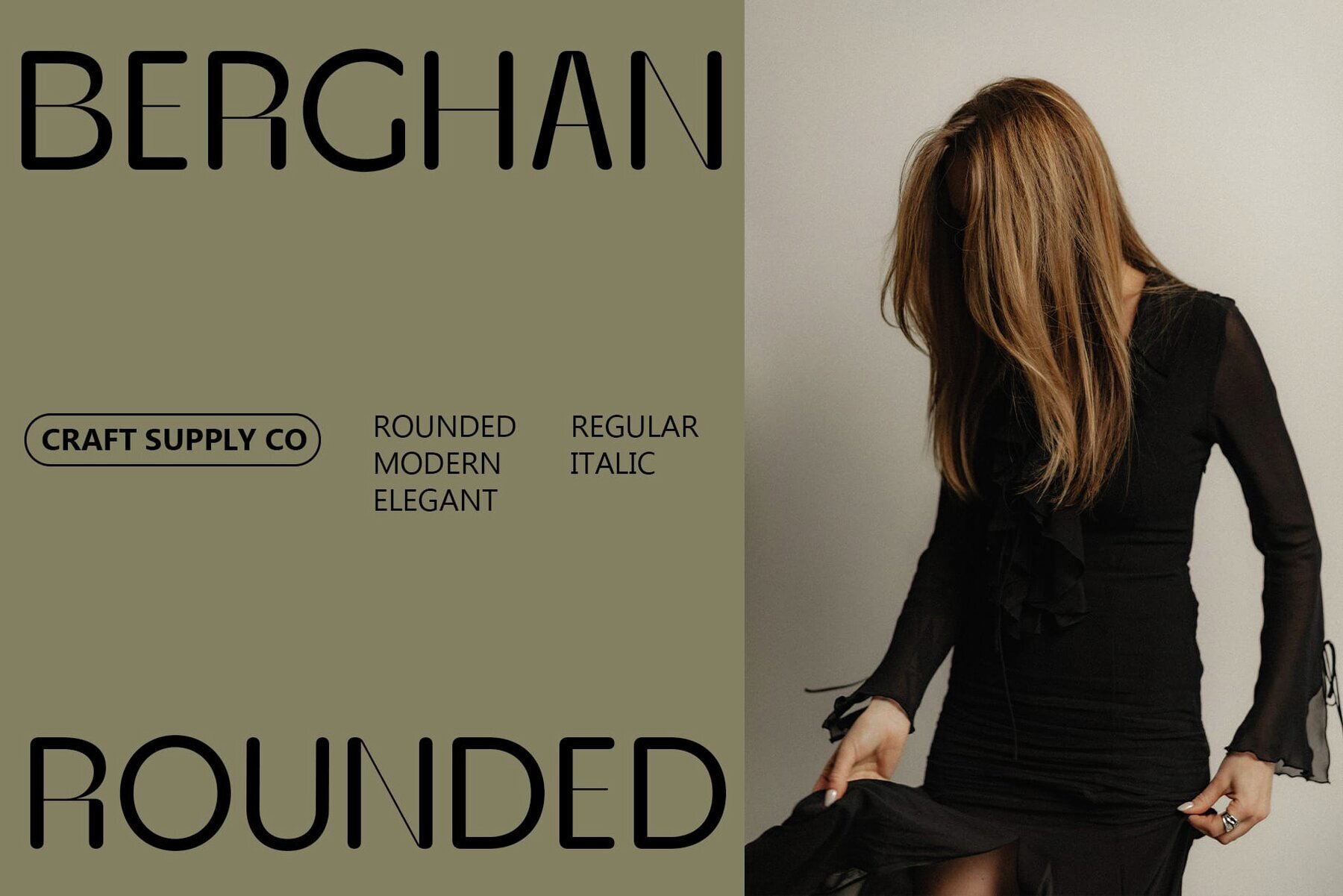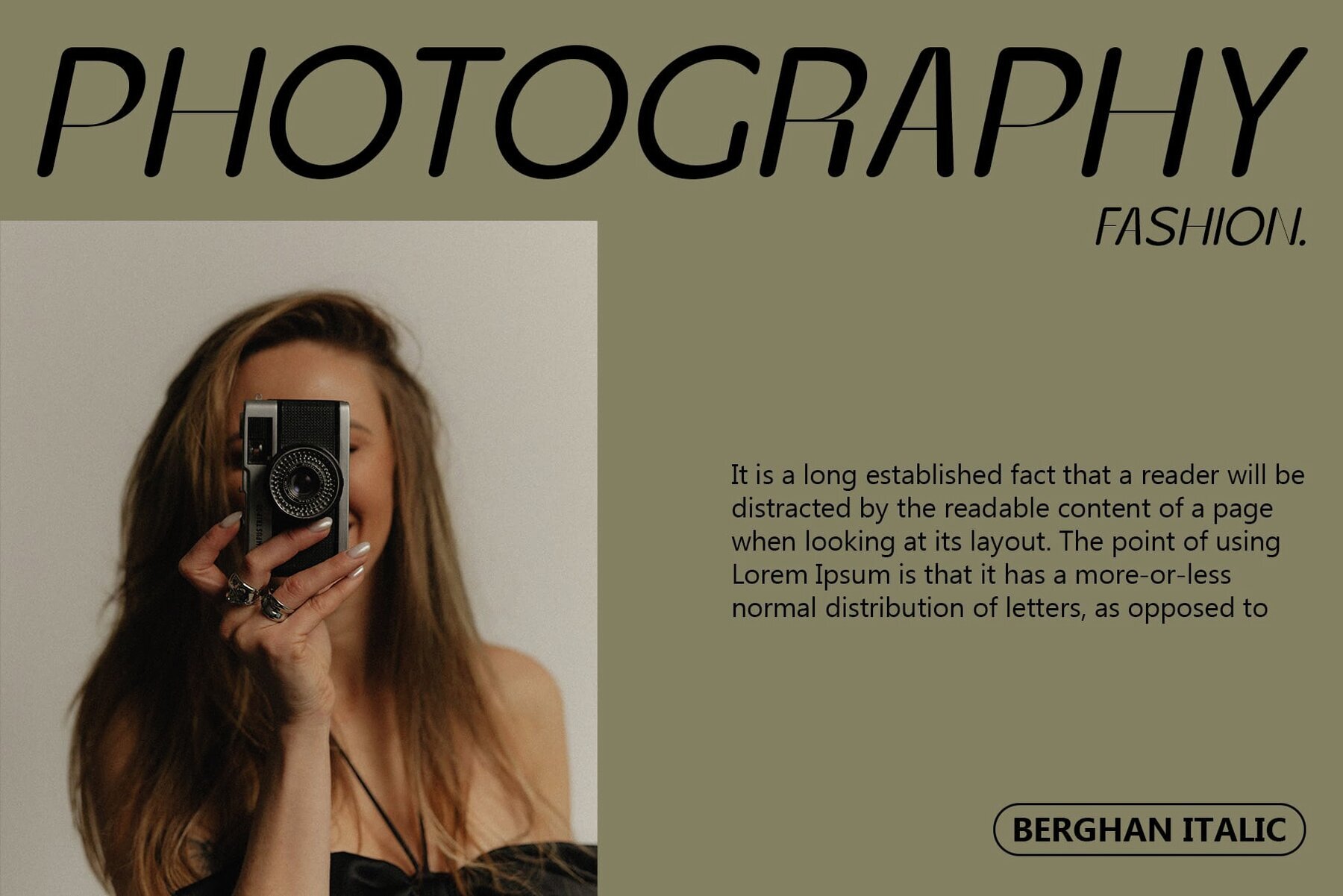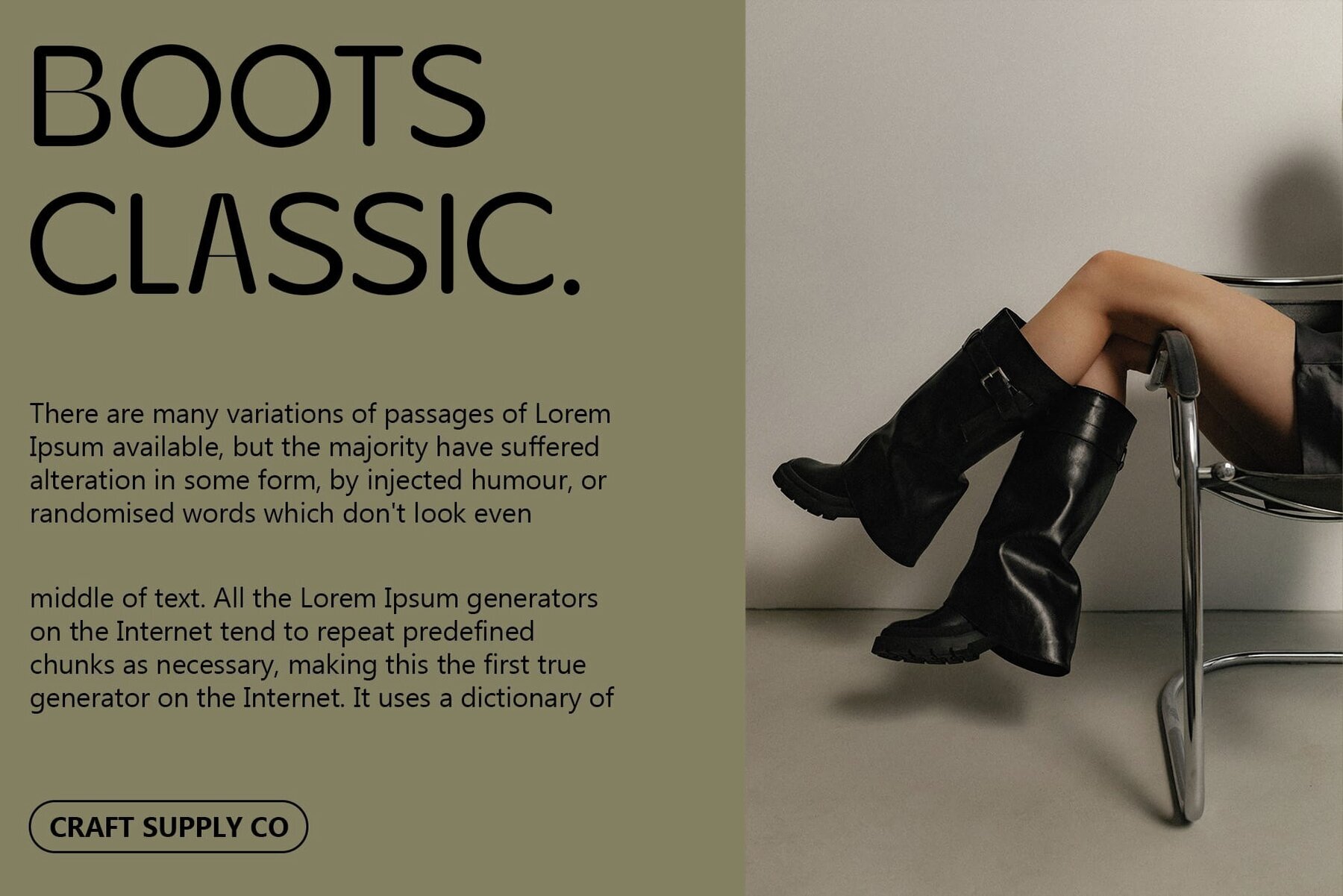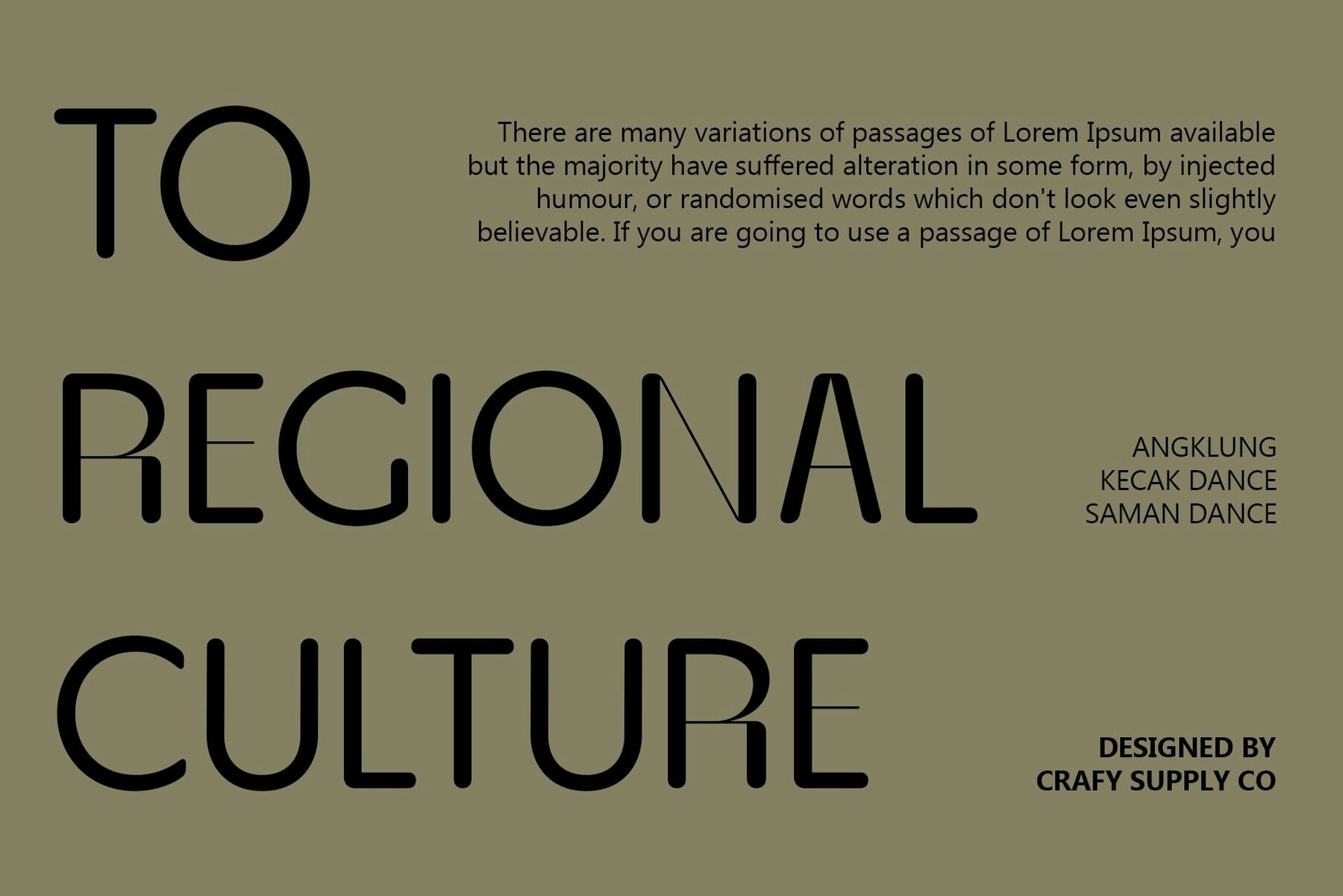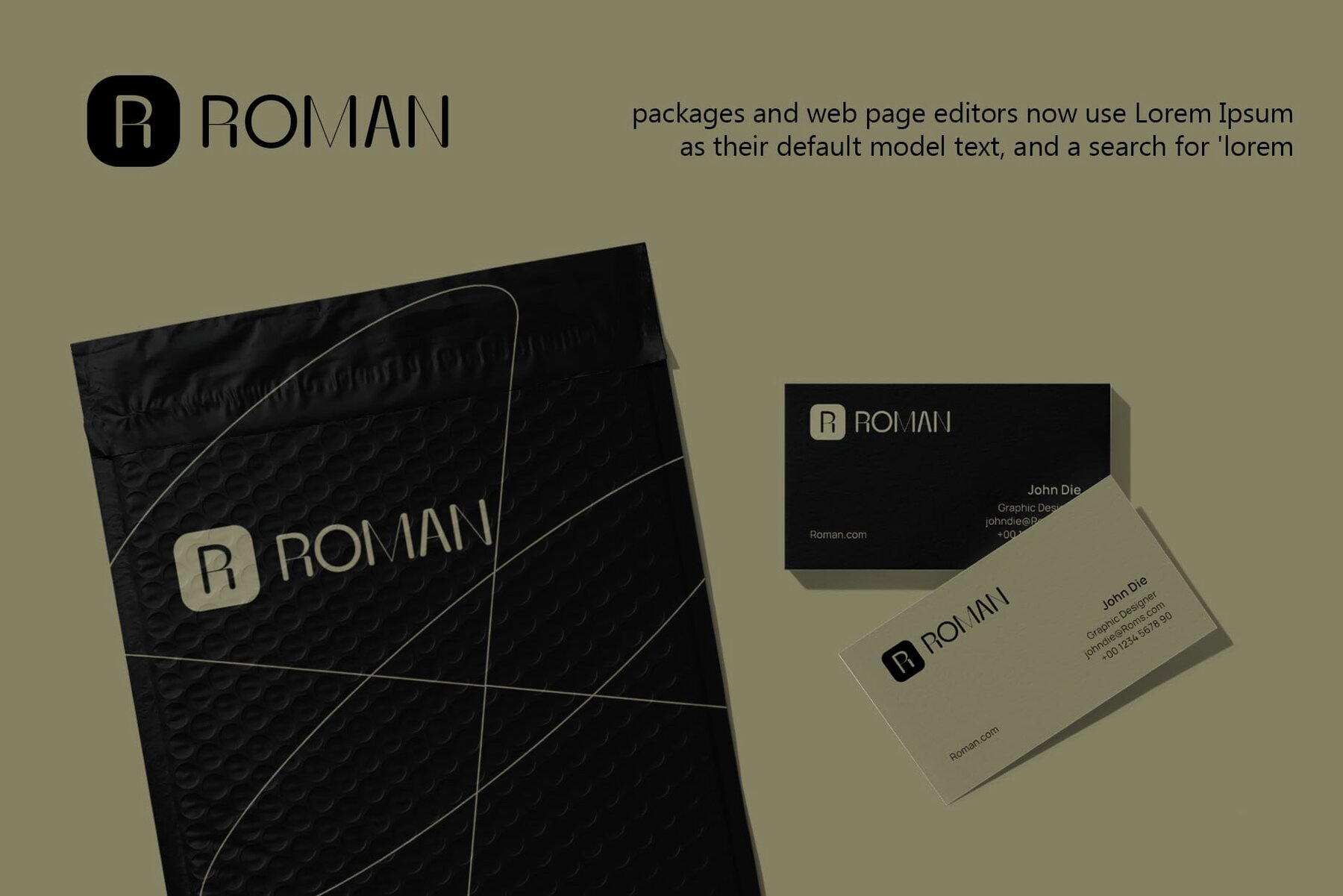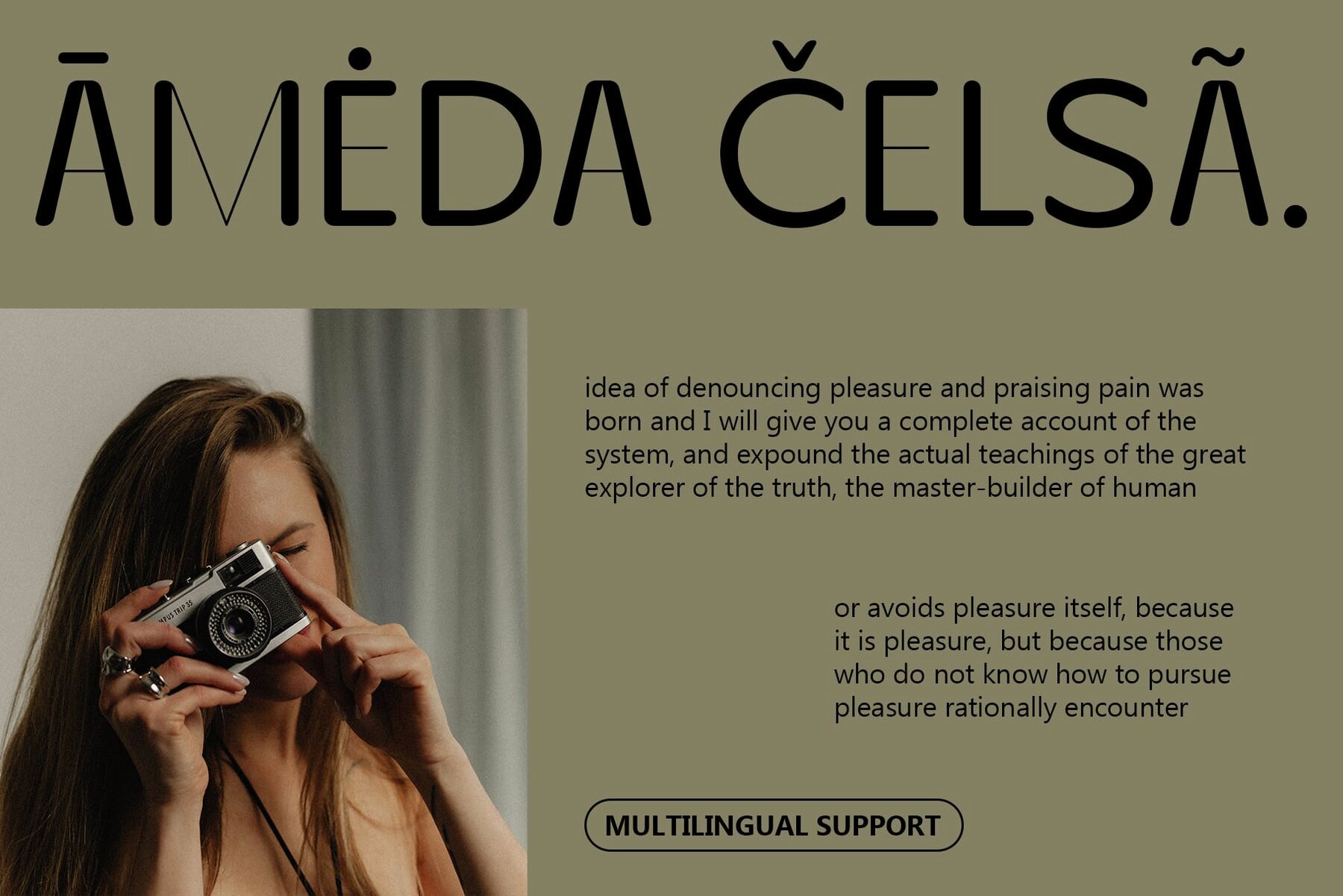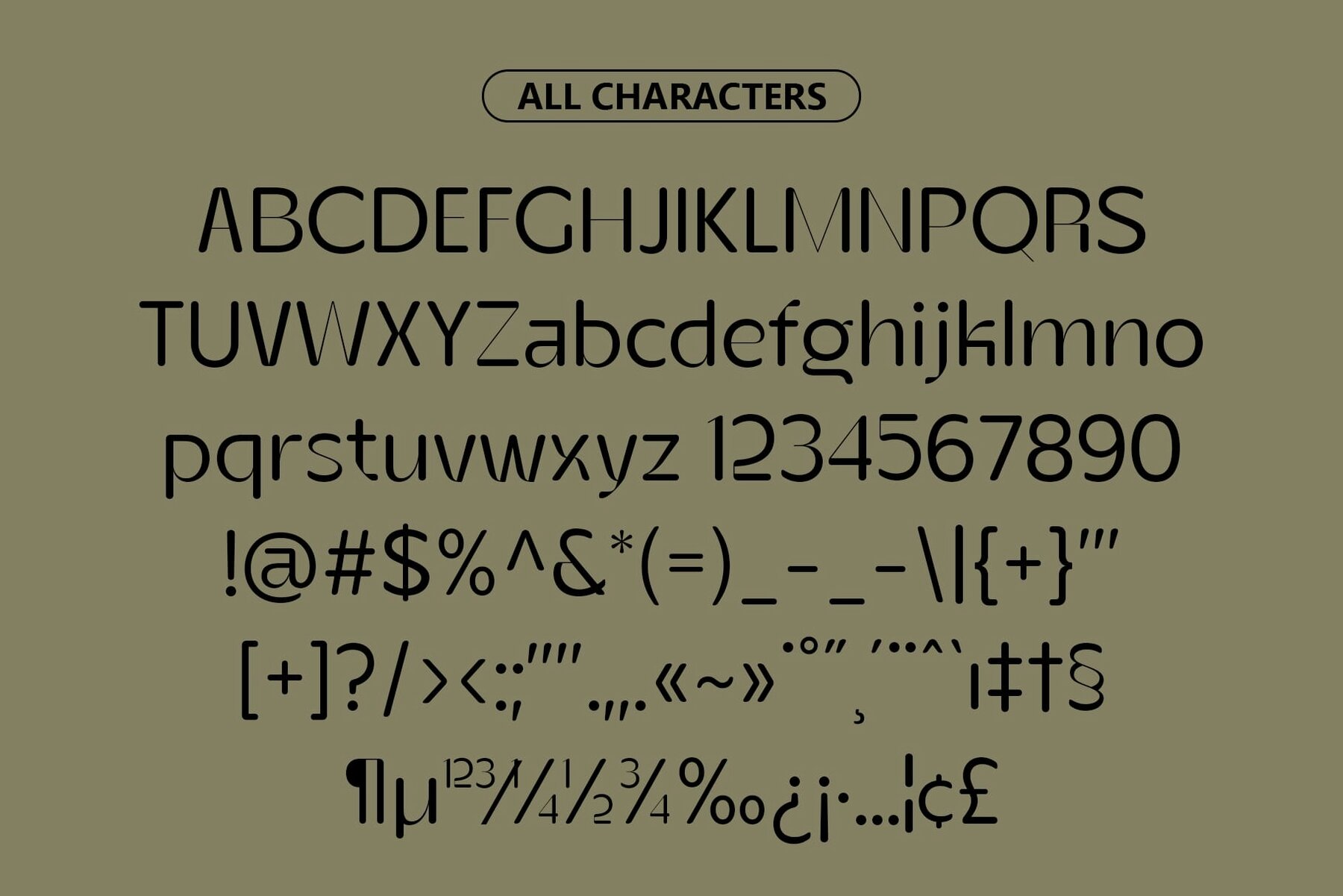
Berghan Rounded Font
Berghan Rounded is a sleek sans serif typeface that showcases a contemporary flair. Its clean lines paired with rounded stem endings embody modernity and sophistication, making it an excellent choice for a variety of design projects. This typeface can be used without the need for any specialized software. If you have any inquiries or need assistance, please feel free to contact us. We appreciate your support in enhancing your creative projects! Best regards, Craft Supply Co.Berghan Rounded: A Sleek Modern Typeface